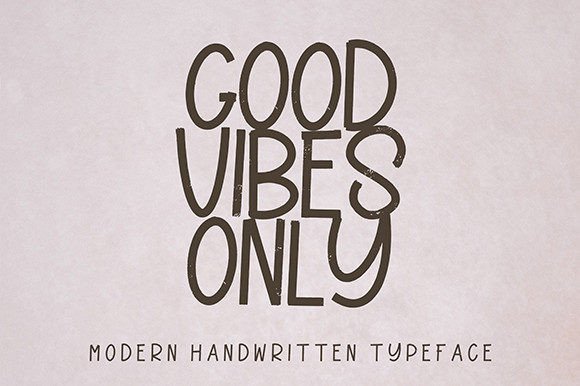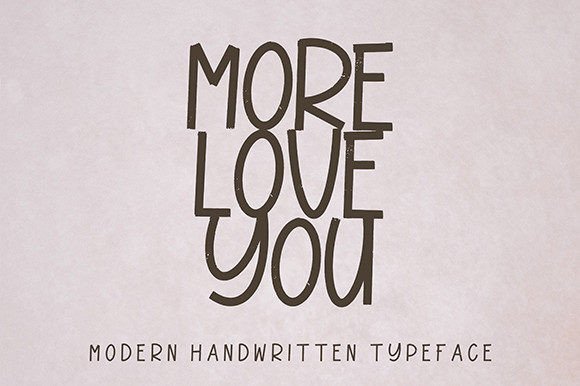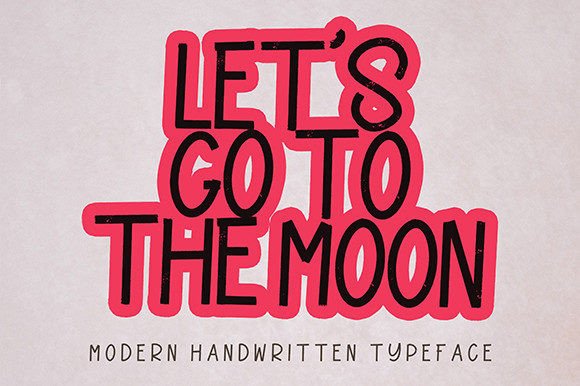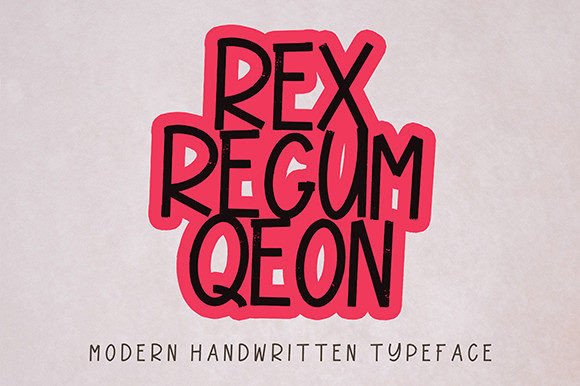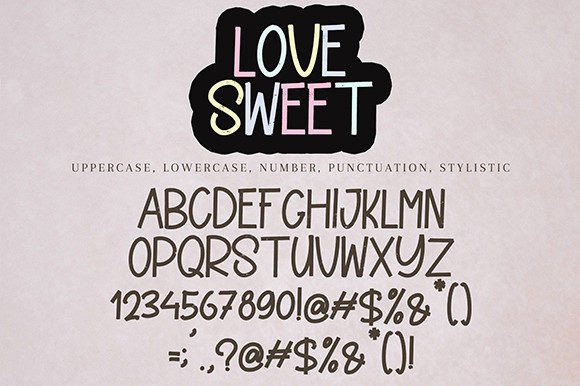
Introduction to Love Sweet Font
Love Sweet is a stylish and elegant handwritten font.
It looks stunning on wedding invitations, thank you cards, quotes, greeting cards, logos, business cards, and any other design that needs a handwritten touch .
Key Features of Love Sweet Font
Why Choose Love Sweet Font?